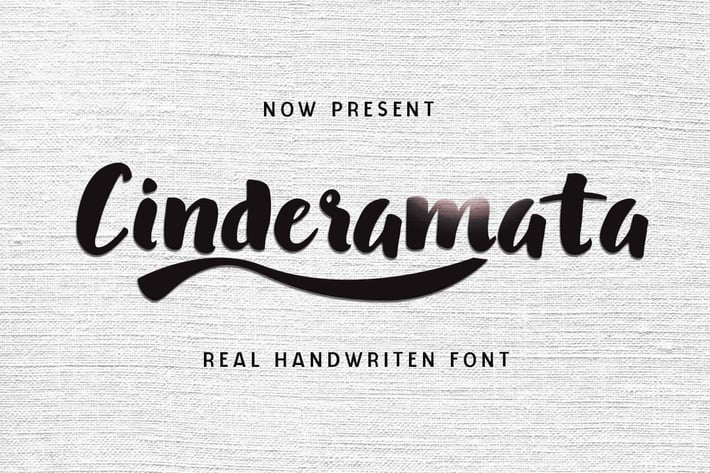
Cinderamata - Handwritten Font
Introducing Cinderamata, a beauty and elegant handwritten font.
So perfect for you who needs a typeface for logo designs, magazine, social media, brochure, and many more.